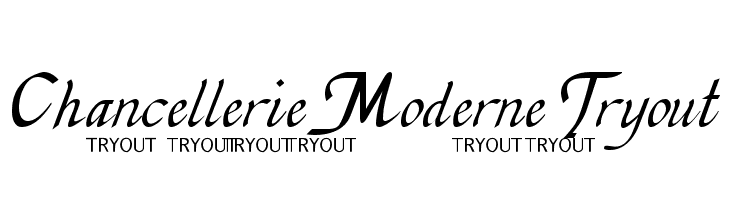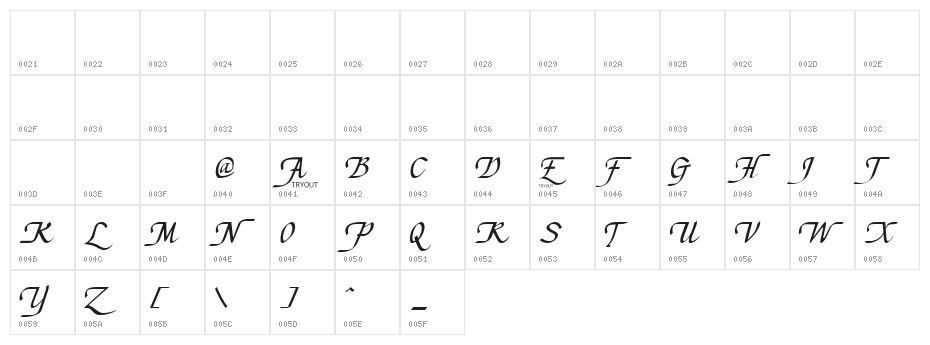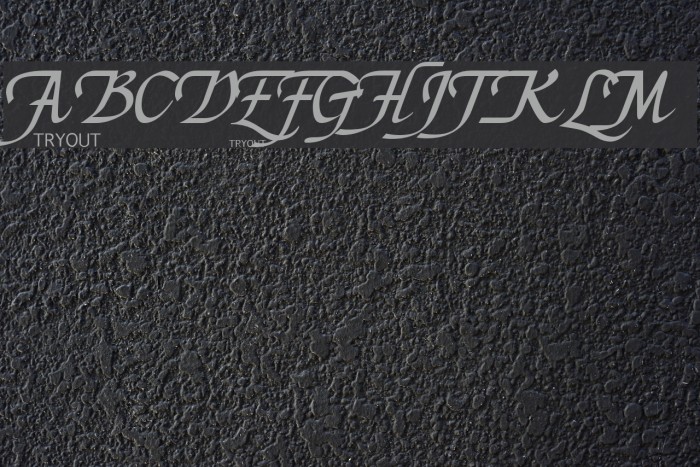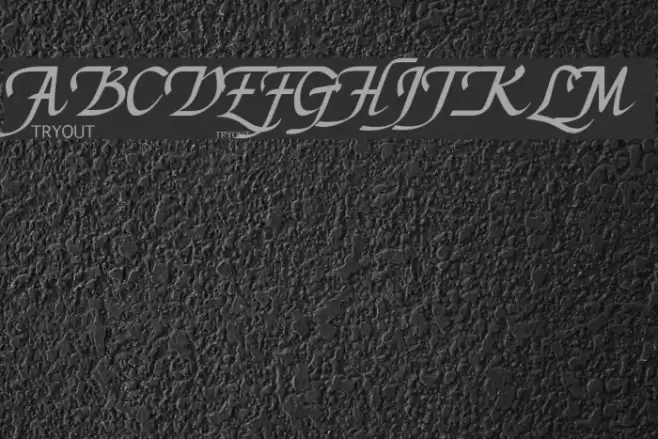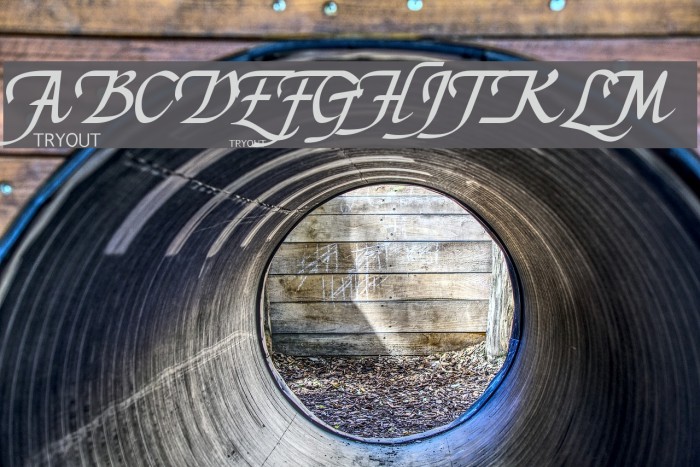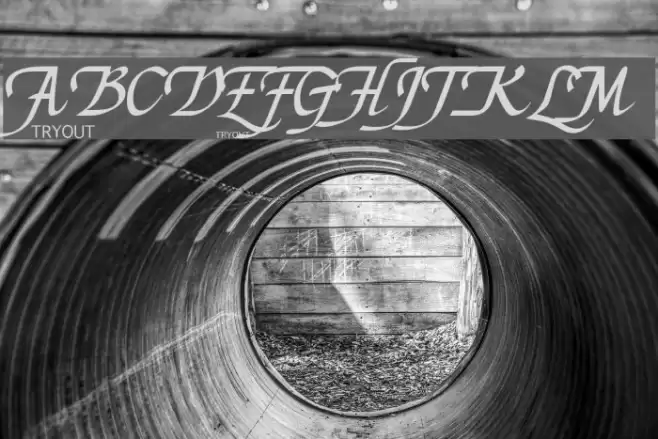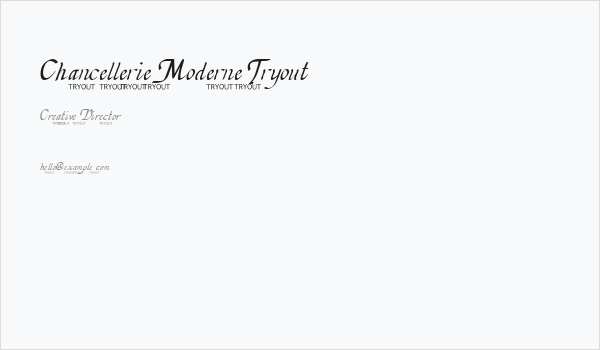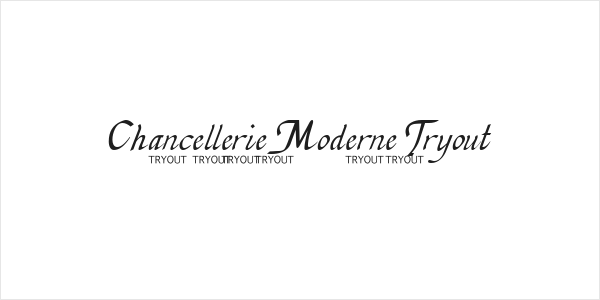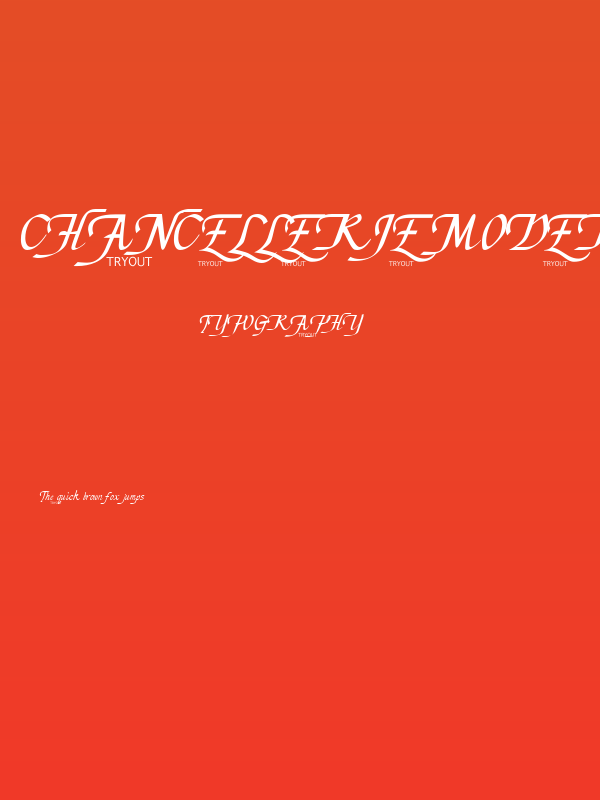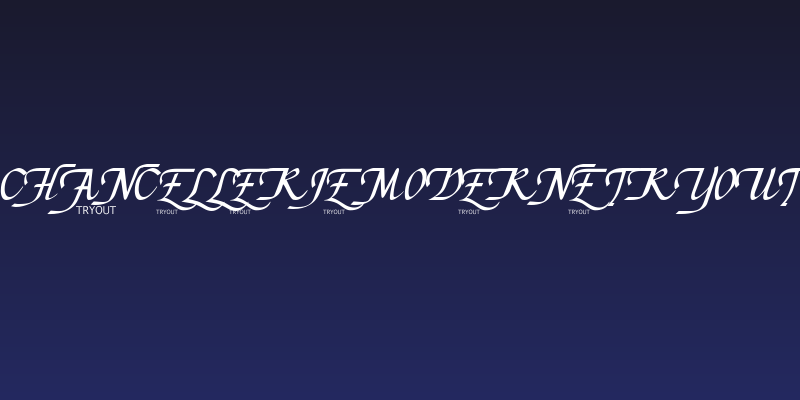
Chancellerie Moderne Tryout Font
Chancellerie Moderne Tryout Description
This font exhibits an elegant and flowing script style, characterized by its cursive and calligraphic elements. The uppercase letters are ornate with sweeping curves and flourishes, giving a sense of sophistication and formality. The lowercase letters maintain a consistent style, with smooth connections and a slight slant that enhances readability while preserving the decorative nature. The numerals and special characters are designed to match the overall aesthetic, ensuring a cohesive appearance across all glyphs. This font is ideal for projects that require a touch of elegance and refinement.
| Proposed Projects | Wedding invitations, formal event programs, luxury brand logos, and elegant packaging designs. |